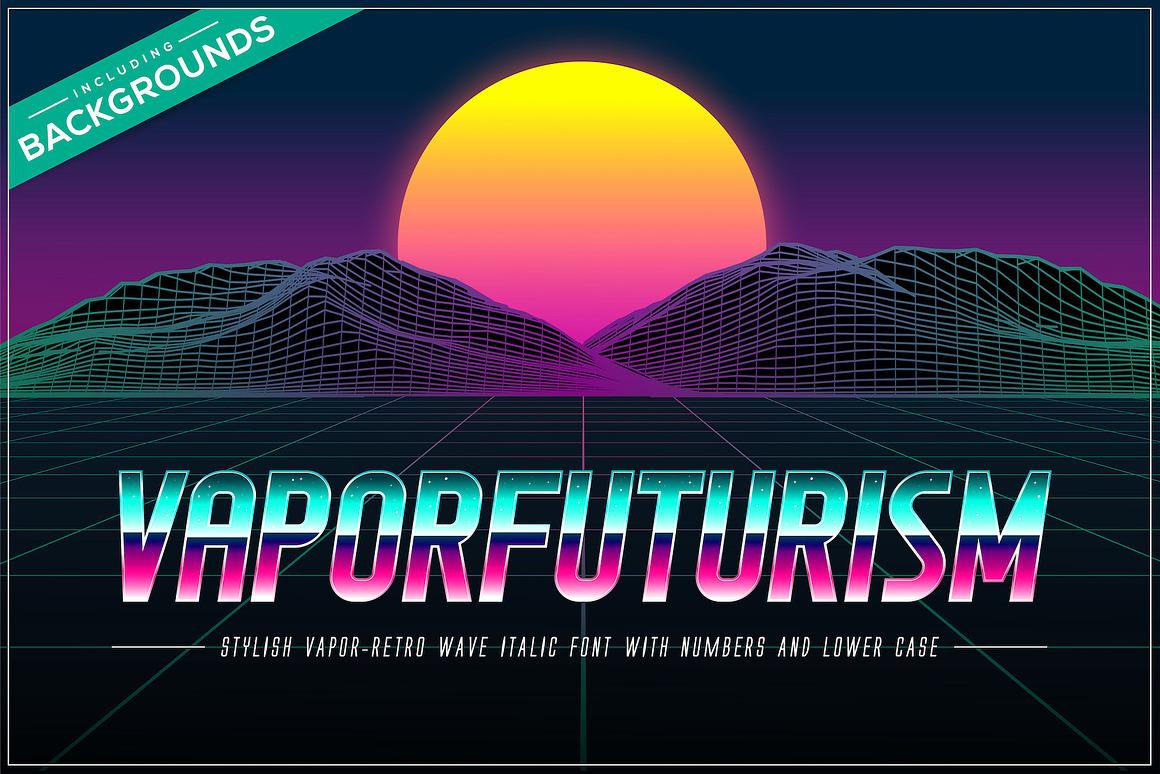
Vaporfuturism OTF Retro Wave Font
Vaporfuturism OTF Retro Wave Font is perfect for various design applications including synthwave music album covers, retro gaming interfaces, cyberpunk movie titles, 1980s-inspired fashion brands, neon nightclub signage, vintage tech product packaging, retrowave festival graphics, nostalgic arcade game designs, vaporwave aesthetic projects, and futuristic retro advertising campaigns. This electrifying typeface excels in projects requiring nostalgic futurism and synthwave aesthetics that captures the electric energy of 1980s technological optimism and neon-soaked digital dreams.
What makes Vaporfuturism OTF Retro Wave Font so exciting is its perfect fusion of 1980s nostalgia with futuristic vision through letterforms that pulse with neon energy and digital grid precision. The font features geometric construction reminiscent of early computer graphics, angular details that suggest circuit boards and laser grids, and distinctive proportions that evoke the optimistic futurism of the Reagan era. Its distinctive synthwave character and retrofuturistic appeal make it ideal for brands seeking to communicate technological nostalgia, digital rebellion, and the enduring fascination with the aesthetic intersection of past and future.
Vaporfuturism OTF Retro Wave Font family includes multiple neon-inspired weights and digital variations that enhance its versatility for different synthwave applications. Each style maintains the font's signature retrofuturistic character while providing options for various cyberpunk design approaches. The family also features digital decorative elements, grid patterns, and neon effect symbols that can be combined with the letterforms to create cohesive vaporwave design systems.
Whether you're developing synthwave brands, retro gaming projects, or cyberpunk communications, Vaporfuturism OTF Retro Wave Font Free Download provides electrifying typography that transports audiences to neon-soaked digital landscapes and celebrates the aesthetic fusion of 1980s nostalgia with futuristic vision. This typeface transforms ordinary communications into pulsing statements that promise authentic synthwave experiences and digital rebellion. The font's neon appeal makes it particularly effective for electronic music labels, retro gaming companies, and brands targeting audiences who appreciate vaporwave aesthetics and retrofuturistic design.
Vaporfuturism OTF Retro Wave Font stands out by delivering authentic synthwave energy that feels genuinely connected to 1980s technological culture rather than superficial retro styling. Its carefully designed digital proportions and neon-inspired details ensure that designs feel authentically connected to vaporwave heritage and cyberpunk traditions. From synthwave album artwork to retro gaming interfaces, this font provides designers with tools to create communications that celebrate retrofuturistic vision and inspire appreciation for synthwave culture through electric, neon-powered typography that captures the essence of digital dreams.